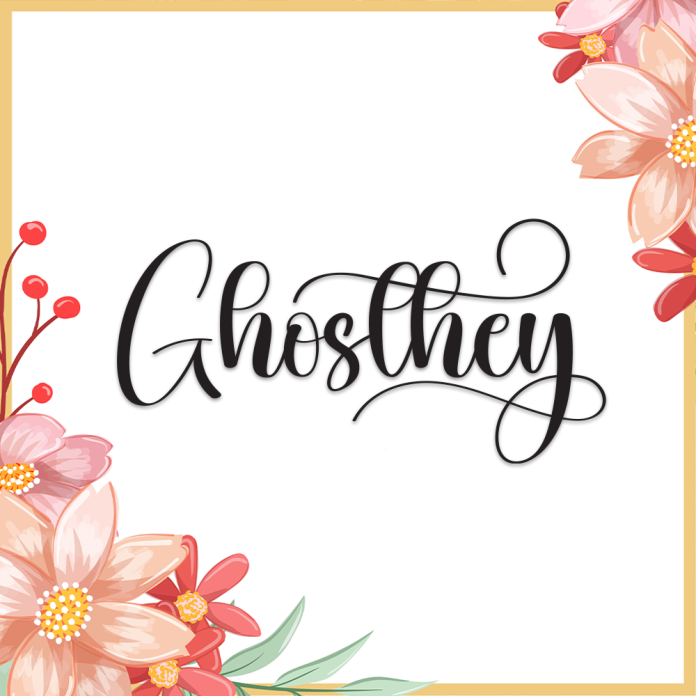
Ghosthey is a playful and charming handwriting font with a friendly vibe. Its smooth, rounded strokes give a warm and approachable feel, making it perfect for fun and creative designs.
Casual and friendly handwritten style
Great for greeting cards, posters, and social media graphics
Smooth curves for a relaxed and inviting look
Includes uppercase, lowercase, numbers, and punctuation
Bring a cheerful, personal touch to your projects with Ghosthey.